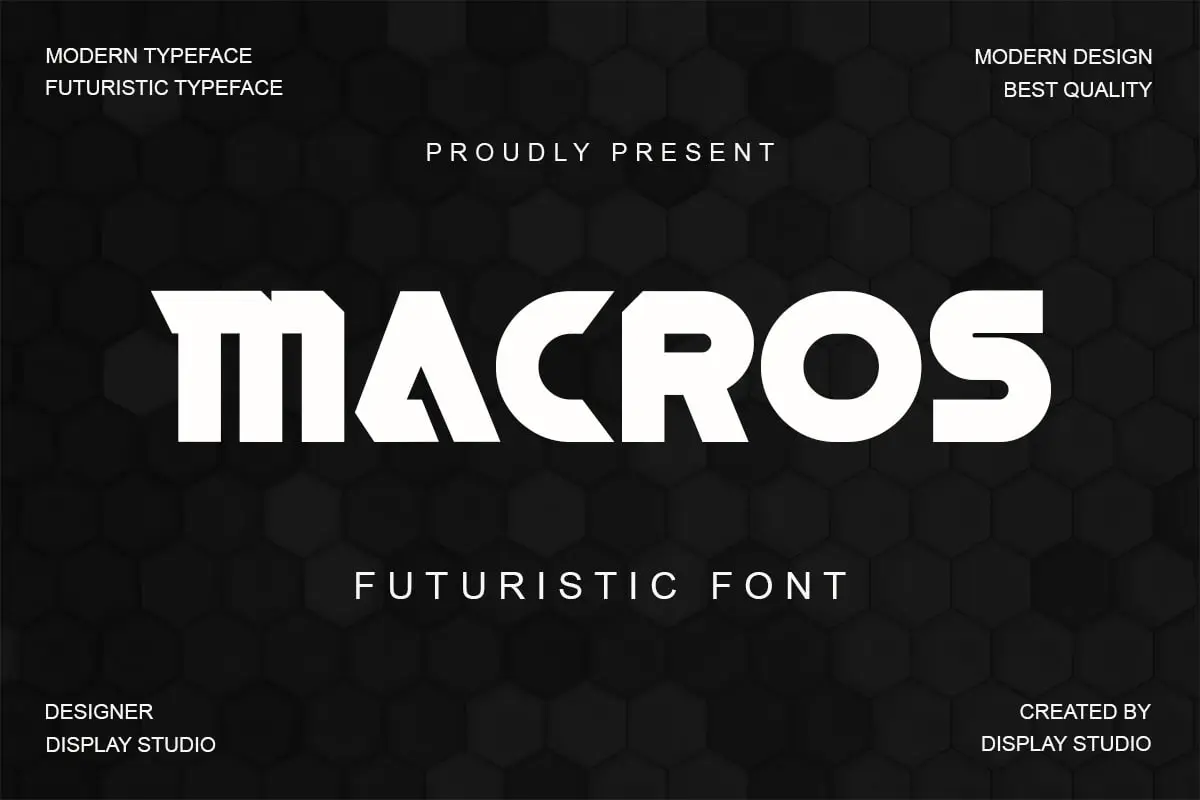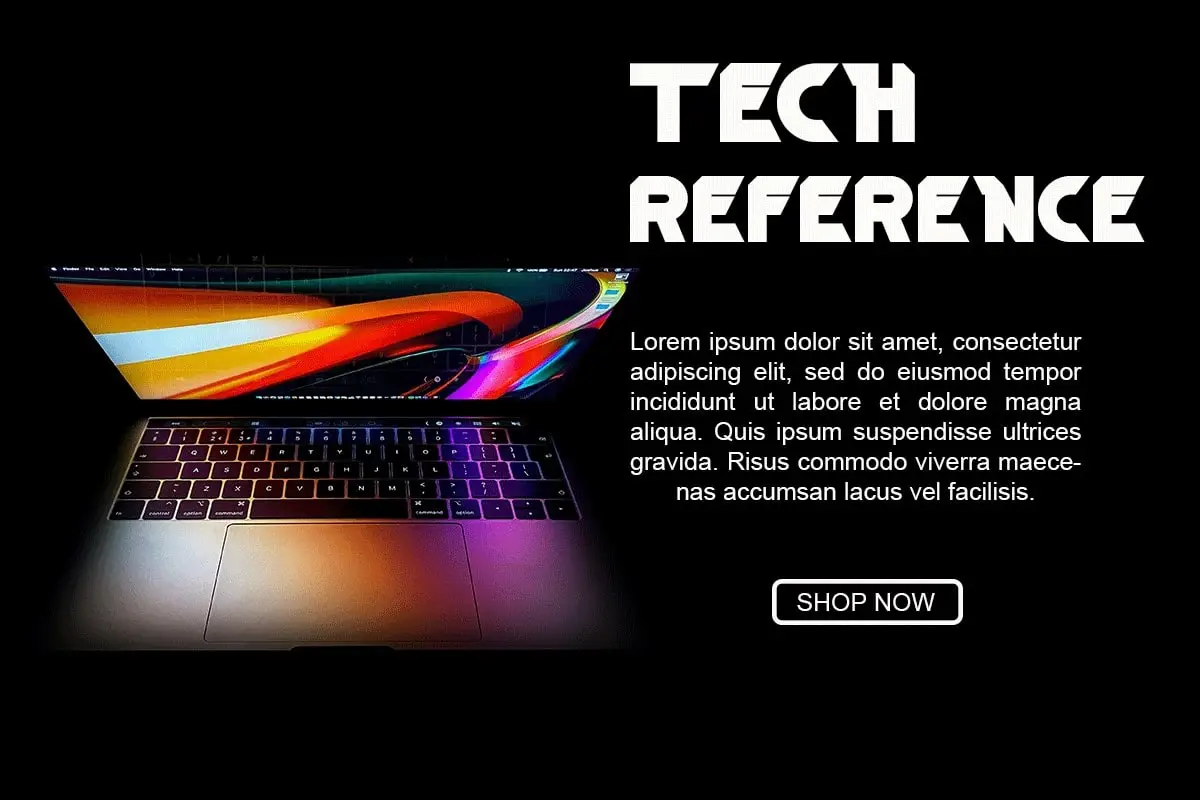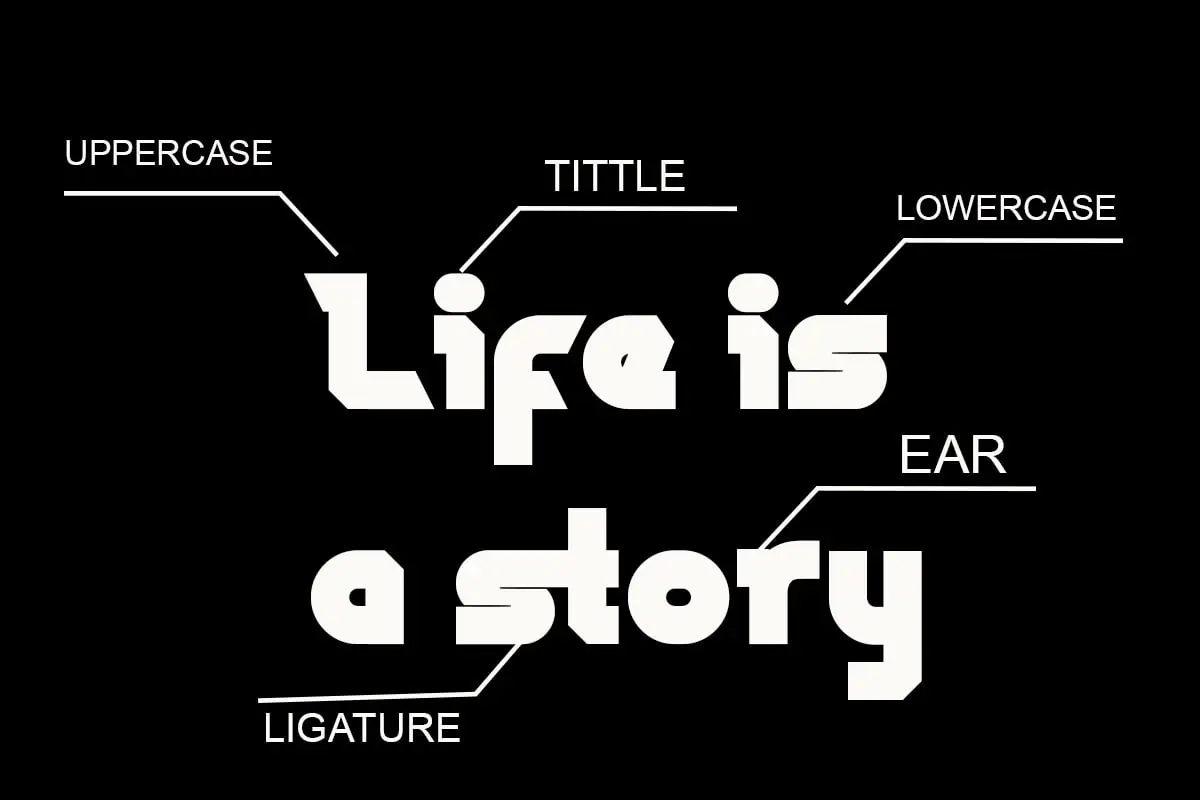
Macros Font
Introducing the Macros Font, a versatile typeface designed to elevate your projects with its modern aesthetic. This font features a clean and contemporary style, making it suitable for a variety of applications.
• Multiple weights for flexibility in design
• Clear and legible characters
• Stylish and modern appearance
• Includes uppercase and lowercase letters, numbers, and punctuation
This font is perfect for branding projects, logo design, web content, and print materials. Its modern look makes it ideal for UI design as well.